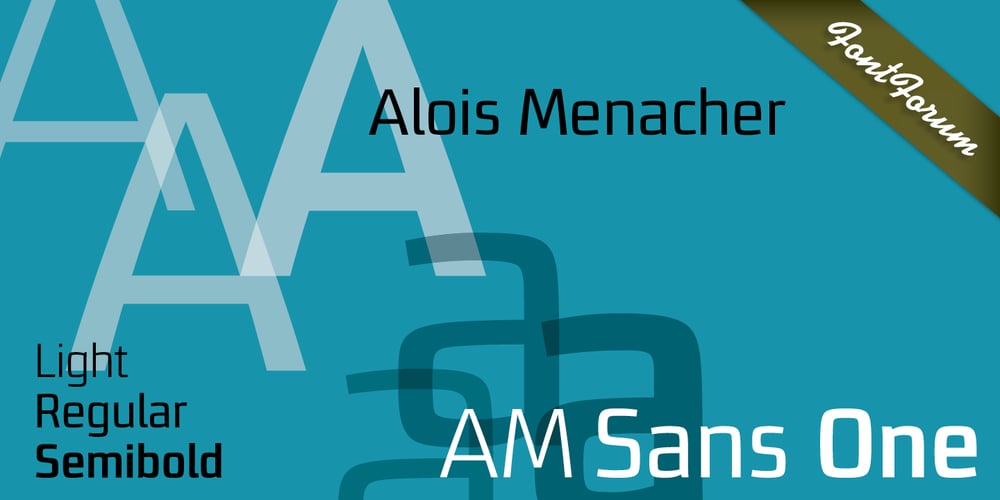
AM Sans One
AM Sans One font
AM Sans One Font Family was designed by Alois Menacher and published by URW Type Foundry. AM Sans One contains 3 styles and family package options. When designing AM Sans One, it was a great challenge for me to develop a modern sans serif, which despite the large number of existing fonts in this sector has its own unique character. Starting point for the design concept was the cap O, designed as a rectangle with rounded corners, and not as usual as a circle or oval. The O should form the basis for the whole alphabet. Another feature are the characters with oblique starting and end strokes such as “A, V, W”. These have not exactly straight, diagonal lines, but have a slight curvature. Thus, these letters do not look too geometric. Also the cap K deviates slightly from the usual shape which makes AM Sans One different from other already existing fonts. I could well imagine applying this font for areas such as engineering or architecture.